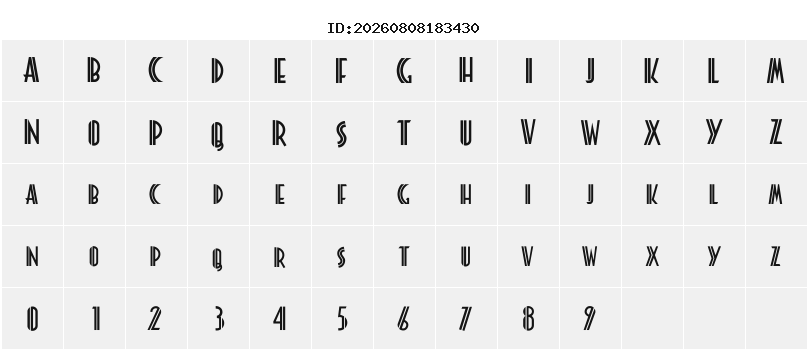
About Platonick-Normal.ttf
Platonick-Normal.ttf is a modern, elegant sans-serif font designed for ultimate readability and visual harmony. Perfect for branding, headlines, web design, and print materials.